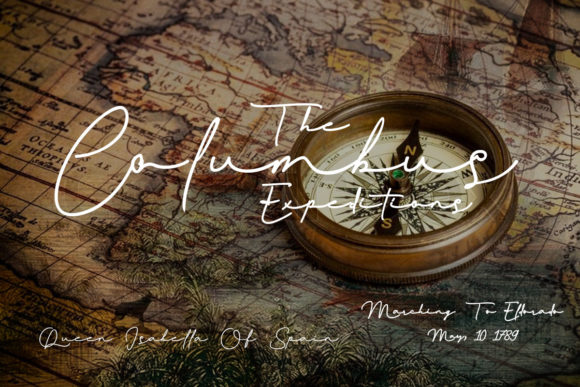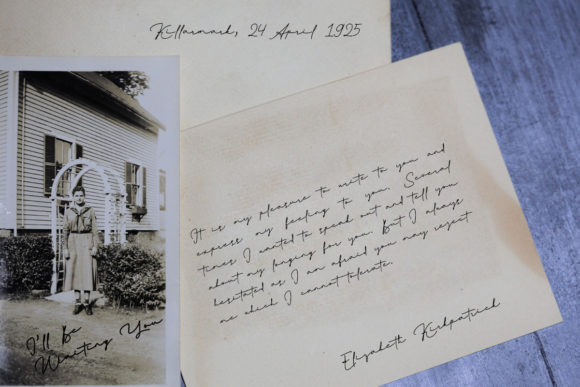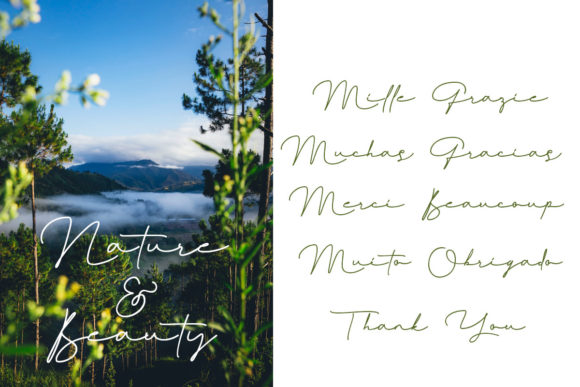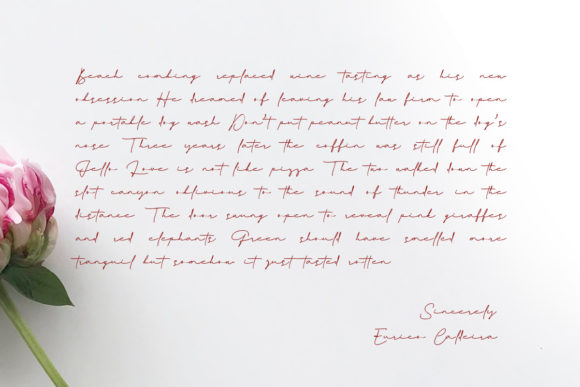
Introduction to Marionette Font
Do you remember that moment when you stumbled upon the perfect font for your creative project? For many designers, it’s a moment of pure joy and inspiration. The Marionette Font is one of those rare gems that can elevate any design to the next level. With its fresh, intimate, and nostalgic feel, this gorgeous script font is a must-have for any creative endeavor.
Whether you’re working on a wedding invitation, a greeting card, or a thank you note, the Marionette Font is the perfect design resource to convey your message with style and elegance. Its high-quality design makes it a valuable asset for any designer looking to add a personal touch to their work. And the best part? You can download it for free, making it an accessible design resource for all.
Key Features of Marionette Font
- High-quality design: The Marionette Font is a premium design resource ideal for creative projects.
- Transparent background: This font features a transparent background, allowing you to easily place it over any image or design element.
- High-resolution design: With a resolution of 300 DPI, the Marionette Font is perfect for printing and high-quality digital applications.
- Unique characteristics: The Marionette Font features a distinctive, hand-drawn design that adds a touch of elegance to any creative project.
- Perfect for creative projects: The Marionette Font is an excellent choice for designers working on creative projects, such as branding, advertising, and editorial design.
Honest Review: Marionette Font
I recently came across the Marionette Font, and I’m excited to share my thoughts on this design resource. One of the things that caught my attention was the high quality of the font, which makes it perfect for creative projects.
- High-quality design: The font is well-crafted and visually appealing.
- Transparent background: This feature makes it easy to use in various design scenarios.
- Limited character set: The font may not have all the characters you need for a specific project.
Overall, I’m impressed with the Marionette Font. It’s a great design resource for personal projects or smaller commercial endeavors. While it may have some limitations, its high quality and free availability make it a valuable addition to any designer’s toolkit.
Tips for Getting the Most Out of Marionette Font
Experiment with different font sizes and styles to create visual interest. Combine Marionette with other design elements to create a cohesive and creative project. Use the font with a transparent background to add depth and dimension to your design.
Marionette Font is suitable for a variety of creative projects, including branding, advertising, and editorial design. Use the font to create eye-catching headlines, titles, and text overlays that grab attention and convey your message effectively.